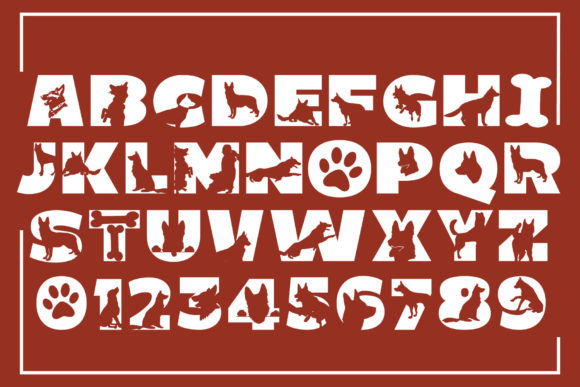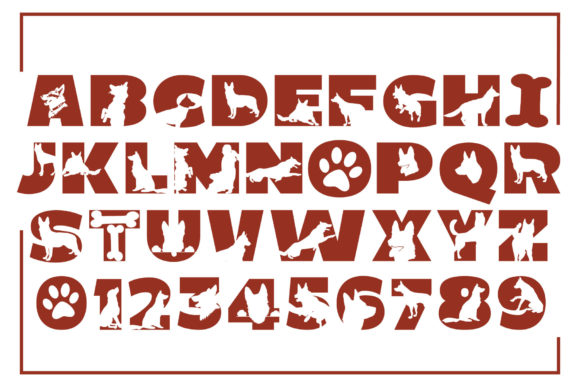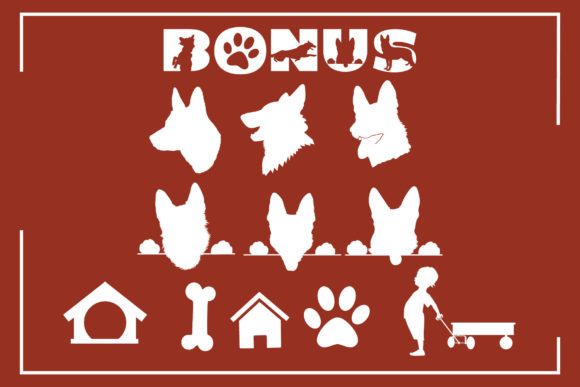
The Ultimate Guide to German Shepherd Mom Font: A Designer’s Delight
I’ll never forget the moment I stumbled upon the German Shepherd Mom font while working on a project for a children’s book. I was on a tight deadline, and my design was looking a bit flat. I needed something that would add a touch of whimsy and personality to the title page. That’s when I discovered this adorable font, featuring shepherds on each character. It was love at first sight! In this article, I’ll share my experience with the German Shepherd Mom font, its features, and how to make the most of it in your designs.
- ✨ The font’s bold yet cute decorative style makes it perfect for cartoon-related designs, children’s games, and quotes.
- ✅ The shepherds on each character add a unique touch that’s sure to make your designs stand out.
- 🎉 It’s incredibly versatile and can be used for various projects, from book covers to posters.
While the German Shepherd Mom font is amazing, there are a few things to keep in mind:
- ⚠️ The font’s playful style might not be suitable for formal or professional projects.
- 🤔 Some characters might be a bit tricky to read, especially at smaller font sizes.
The Designer Inspiration Behind German Shepherd Mom Font
The German Shepherd Mom font was created by a talented designer who wanted to capture the love and playfulness of shepherd dogs. The designer’s inspiration came from their own experience as a dog mom and their passion for creating unique and fun fonts. The result is a font that’s both adorable and versatile, perfect for a wide range of design projects.
| Q: What type of projects is the German Shepherd Mom font best suited for? | A: The German Shepherd Mom font is perfect for cartoon-related designs, children’s games, quotes, titles, brand names, book covers, posters, and any other project that requires a touch of whimsy and playfulness. |